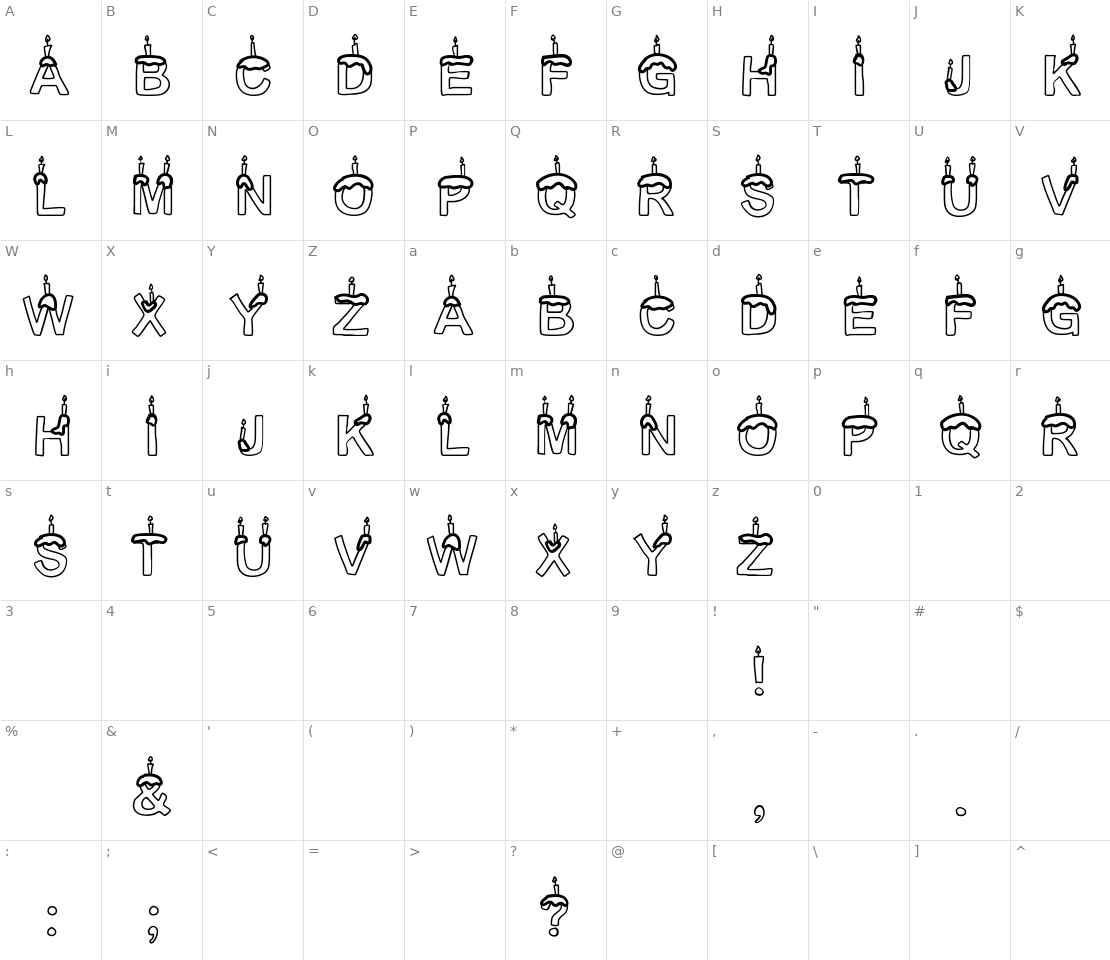
Time To Party
by Shari Davis
Time To Party is a decorative novelty face by Shari Davis where the letterforms are built from birthday candles, complete with outlines and festive detailing that make the party theme unmistakable. It's playful and specific, best reserved for birthday invitations, celebration graphics, and event signage where the candle motif actually fits the context. Strictly a headline face, since the novelty construction loses all legibility at smaller sizes.